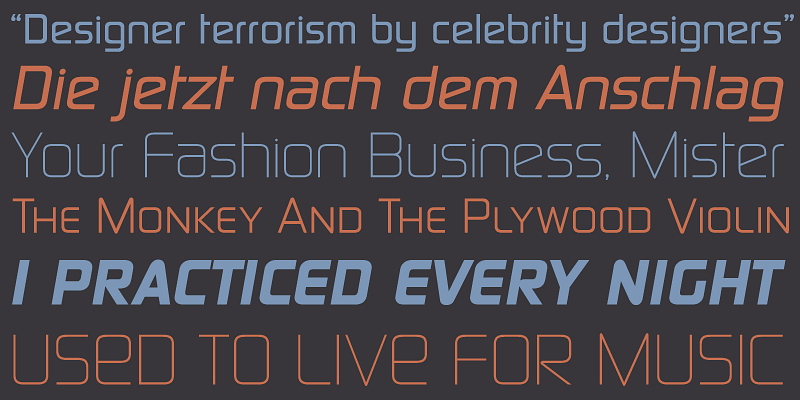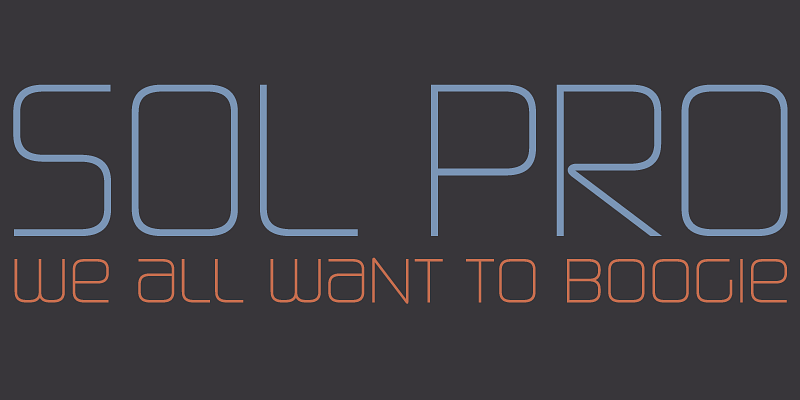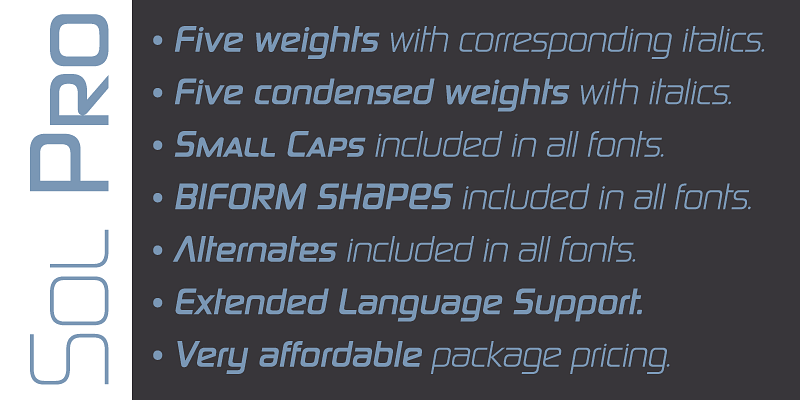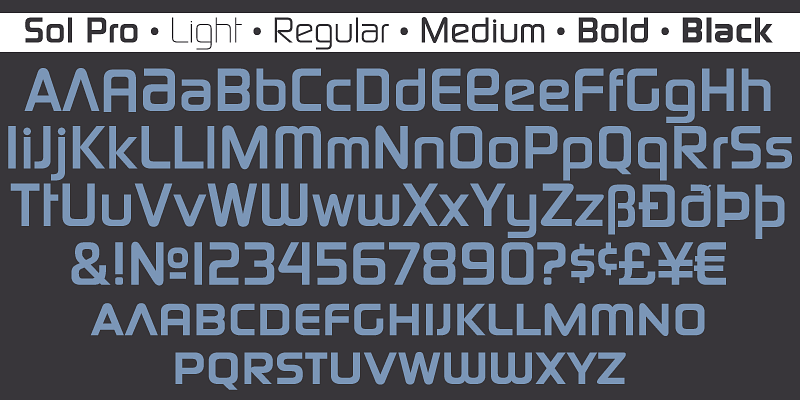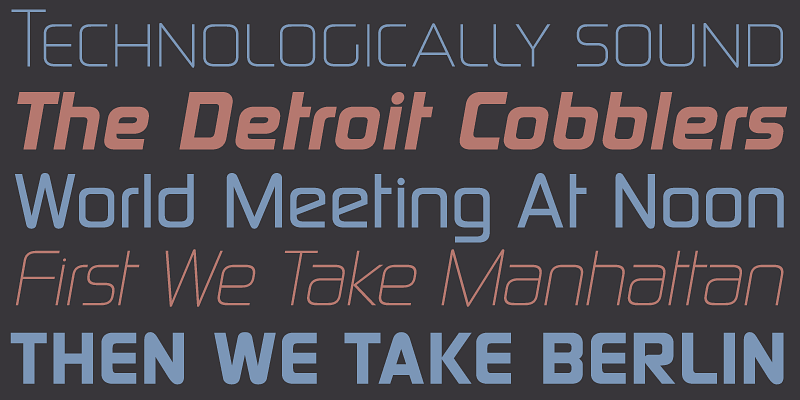
Sol is the retooling of the 1973 Goldstein & Smith design. It’s one of the more prominent forefathers and strong influencers of the soft, streamlined aesthetic going strong in branding and packaging design for almost half a century now.